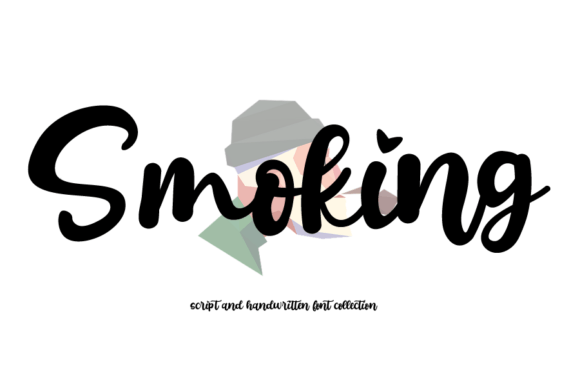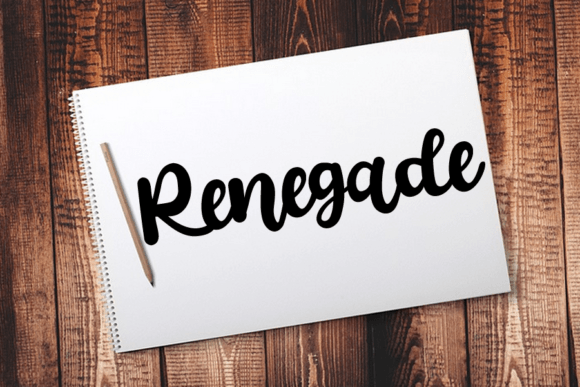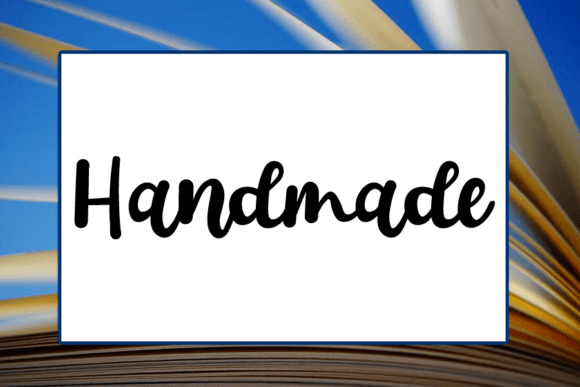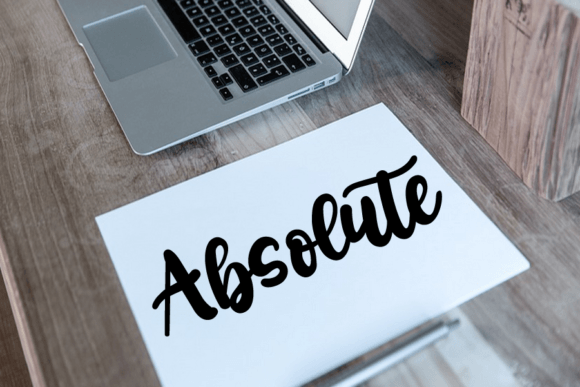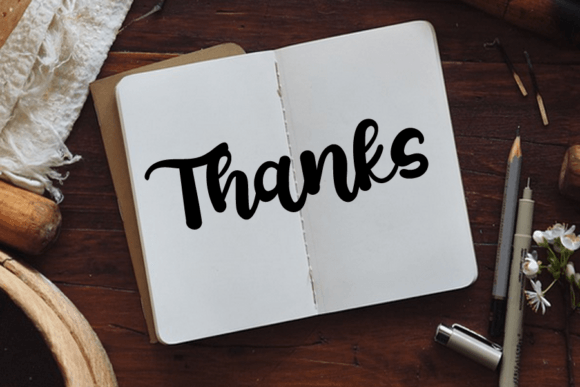
Smoking Font
About Smoking Font
Introducing “Smoking” – Your Elegant Handwritten Font for Standout Designs!
“Smoking” is more than just a font; it’s a beautifully crafted handwritten typeface that will elevate your work with its elegant and curvy lines. Whether you’re working on product packaging, branding projects, magazine covers, social media graphics, wedding materials, or any creative project that demands an elegant touch, “Smoking” is the perfect choice.
With “Smoking,” you have access to a font that exudes sophistication and style. Its graceful and curvaceous letterforms add an element of luxury to your text, making it ideal for creating designs that captivate your audience with their elegant charm.
Imagine using “Smoking” to enhance your product packaging, creating a brand identity that stands out with sophistication, designing magazine covers that exude a sense of luxury, crafting social media graphics that leave a lasting impression, or simply using it in any project where an elegant handwritten font is desired.
Whether you’re a seasoned designer looking for a font with an exquisite touch or someone who values the power of elegance in design, “Smoking” is your go-to typeface for creating designs that command attention with their graceful lines.